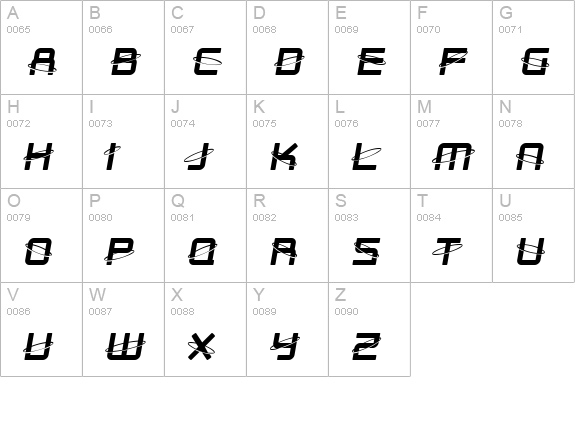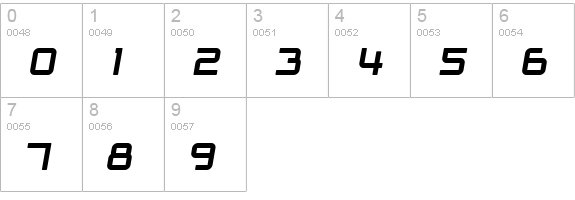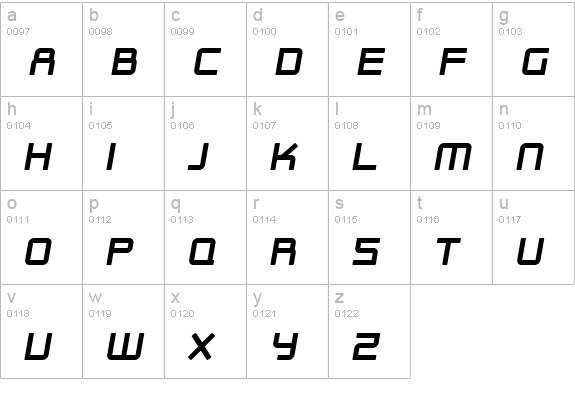
SF Outer Limits Font Details
Introducing SF Outer Limits font, a captivating and futuristic typeface that pushes the boundaries of design. This visually striking font takes inspiration from the vast and uncharted depths of outer space, effortlessly blending modern aesthetics with a touch of otherworldly mystery. With its sleek and angular letterforms, SF Outer Limits font commands attention and transports your projects to a realm where imagination knows no bounds. Each character is meticulously crafted to exude a sense of cosmic elegance, making it the perfect choice for projects that demand a touch of sophistication and innovation. But what sets SF Outer Limits font apart from the rest is not just its exceptional design, but also the fact that it is available for free! Yes, you read that right. This extraordinary font is freely available to download at FontsMarket.com, ensuring that creativity and innovation are accessible to all. Whether you're designing a science fiction book cover, an otherworldly logo, or a cutting-edge website, SF Outer Limits font is the ideal companion to bring your vision to life. Its versatility allows it to seamlessly adapt to various design styles, making it a valuable asset for any creative project. So why wait? Unleash your creativity and explore the outer limits of design with SF Outer Limits font. Download it for free at FontsMarket.com and embark on a journey that will transport your projects to new dimensions of visual excellence.